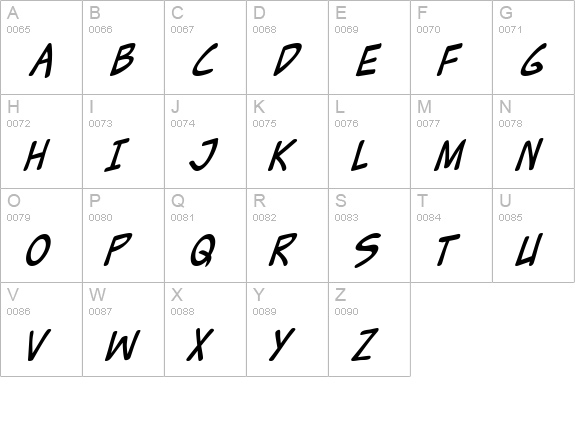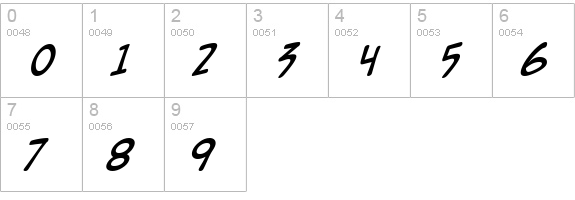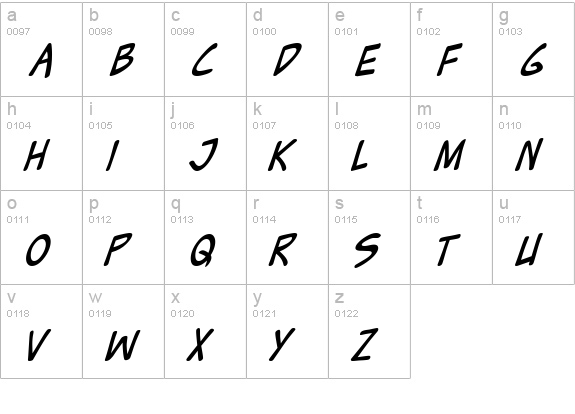
Zud Juice Italic Font Details
Zud Juice Italic is a distinctive, italic variant in the Zud typeface family \xE2\x80\x94 well suited to design and typography projects.
Zud Juice Italic font is a stylish and modern typeface that exudes sophistication and elegance. Its sleek italic design adds a touch of flair to any project, making it perfect for branding, editorial design, and more. The flowing lines and unique letterforms of Zud Juice Italic font give it a distinctive and eye-catching appearance that is sure to captivate your audience. The best part? Zud Juice Italic font is completely free to download at FontsMarket.com. This means you can elevate your designs without breaking the bank. Whether you're working on a personal project or a professional assignment, Zud Juice Italic font is a versatile and dynamic choice that will take your typography to the next level. Download it today and unlock a world of creative possibilities!